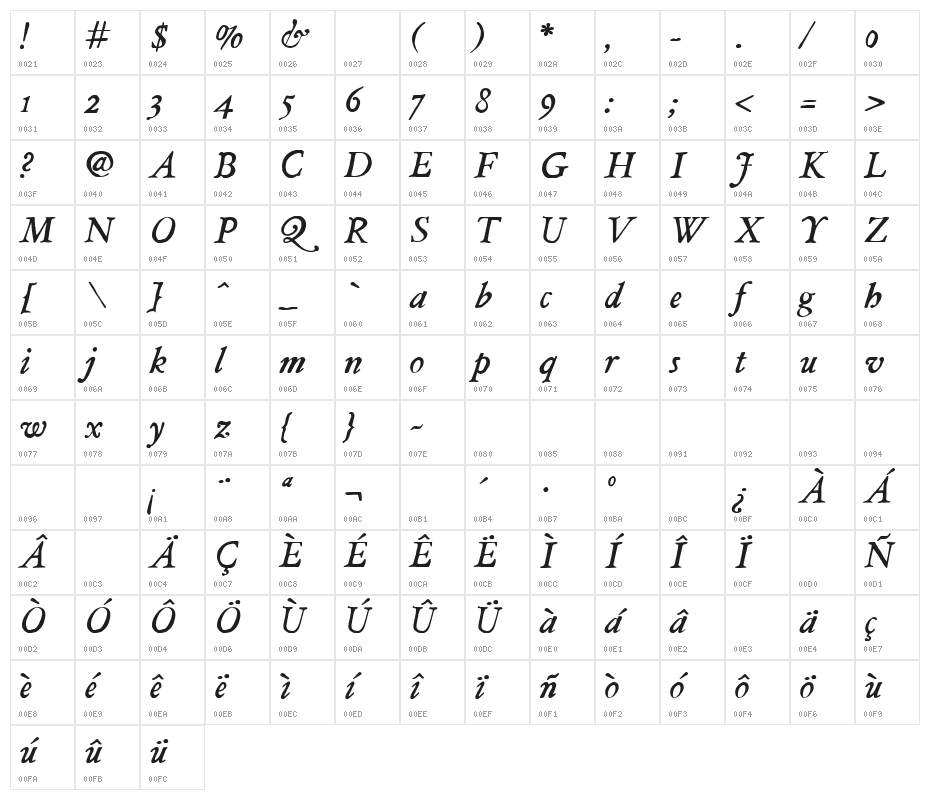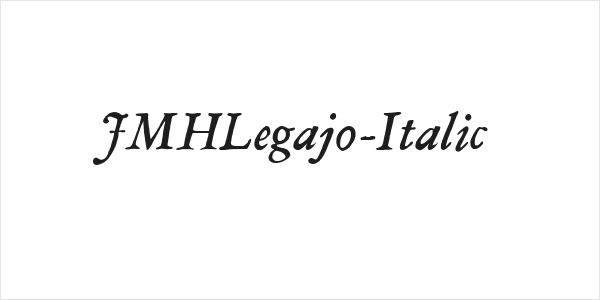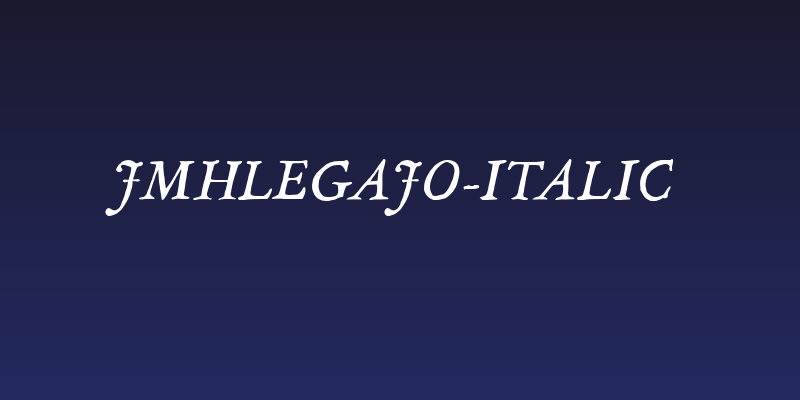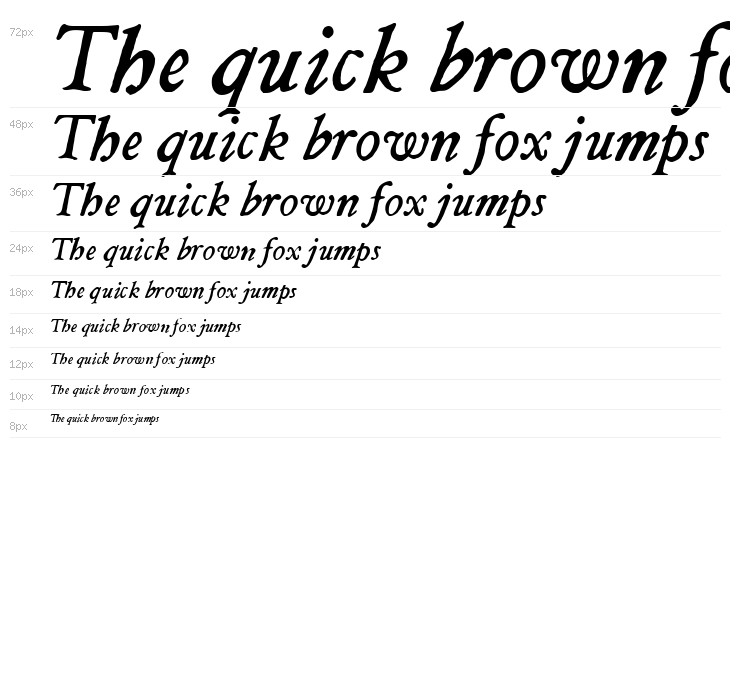
JMHLegajo-Italic Font
JMHLegajo-Italic Description
This font features an elegant and flowing italic style, characterized by its smooth curves and dynamic slant. The uppercase letters exhibit a refined and sophisticated appearance, with distinctive flourishes that add a touch of classic elegance. The lowercase letters maintain a consistent style, offering a harmonious blend of readability and artistic flair. The numerals are well-proportioned and align seamlessly with the overall design. Special characters are thoughtfully crafted, enhancing the font's versatility. This typeface is ideal for projects that require a touch of sophistication and elegance.